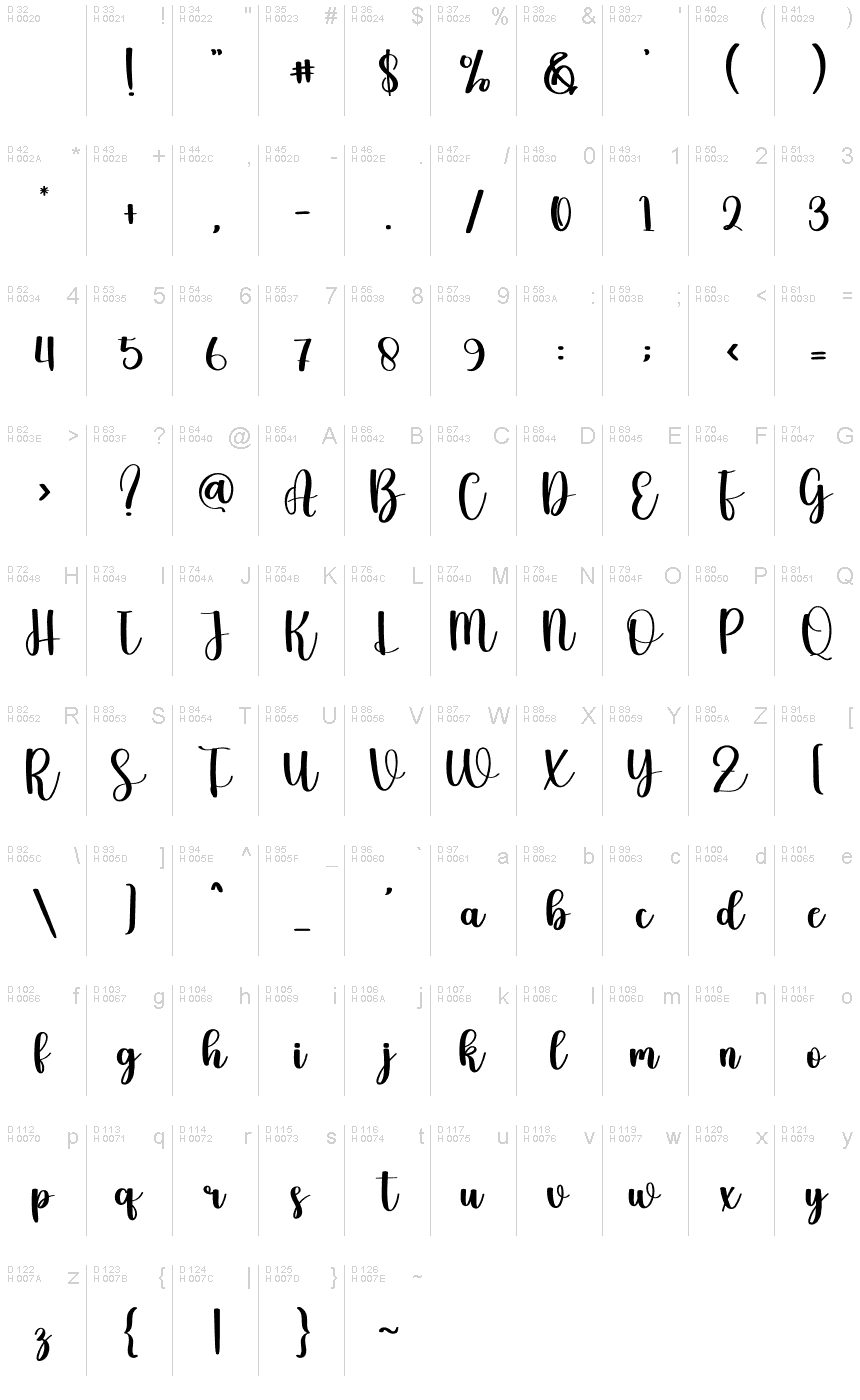
Christmas Specialist
Christmas Specialist is a calligraphic script font designed by Inermedia Studio. Perfect for creating holiday cards and gift tags, this font also adds a festive touch to invitations, logos, web design and more.